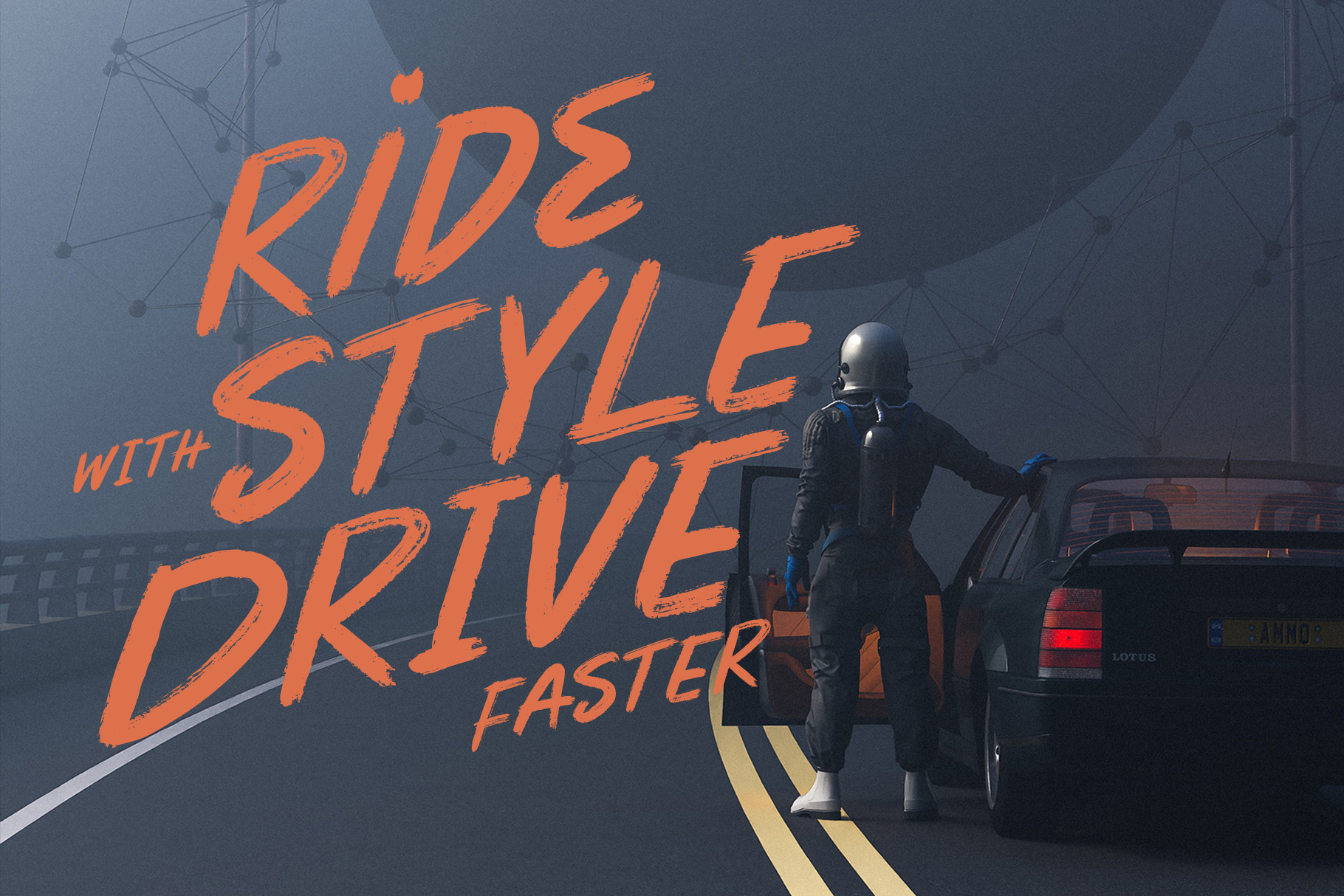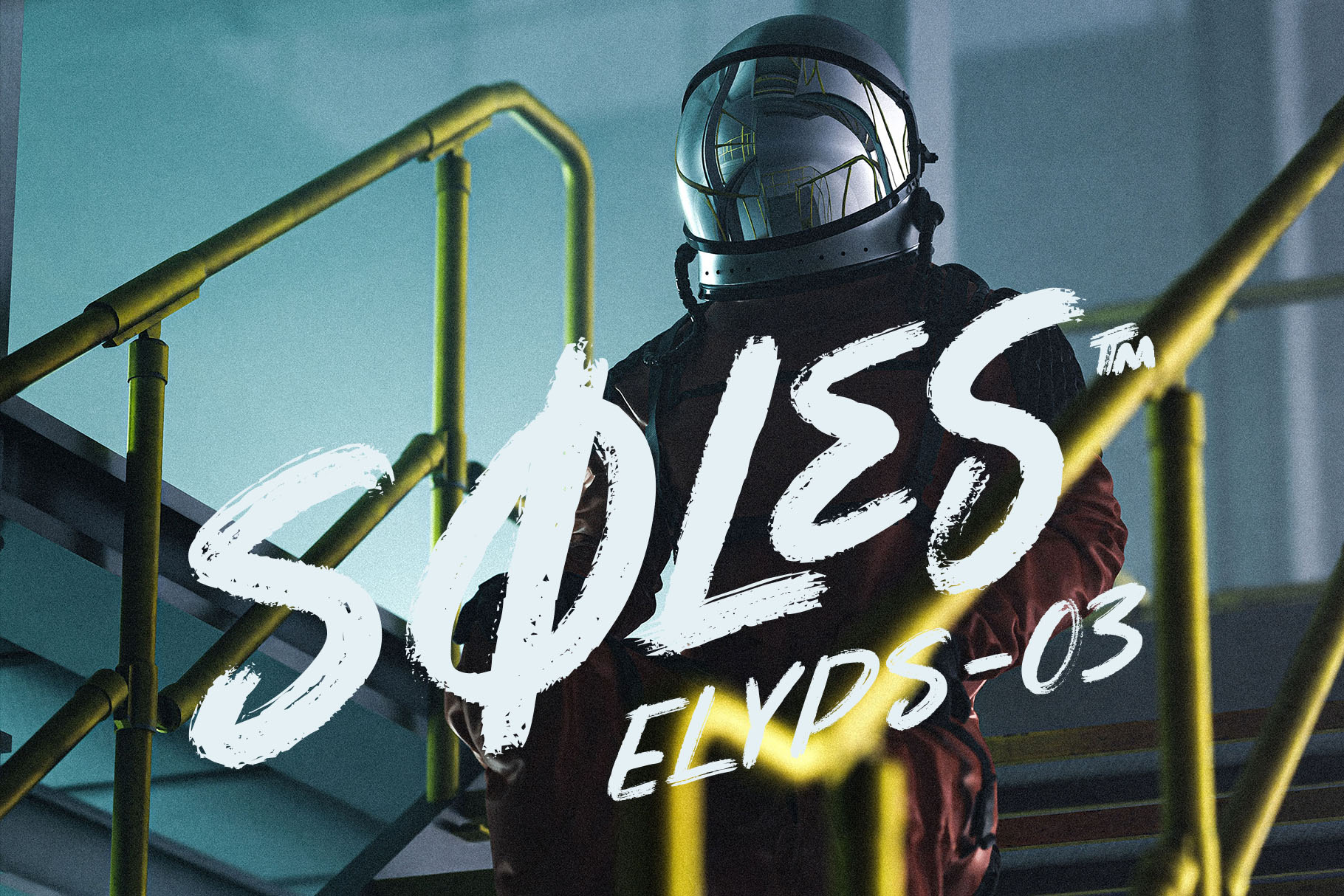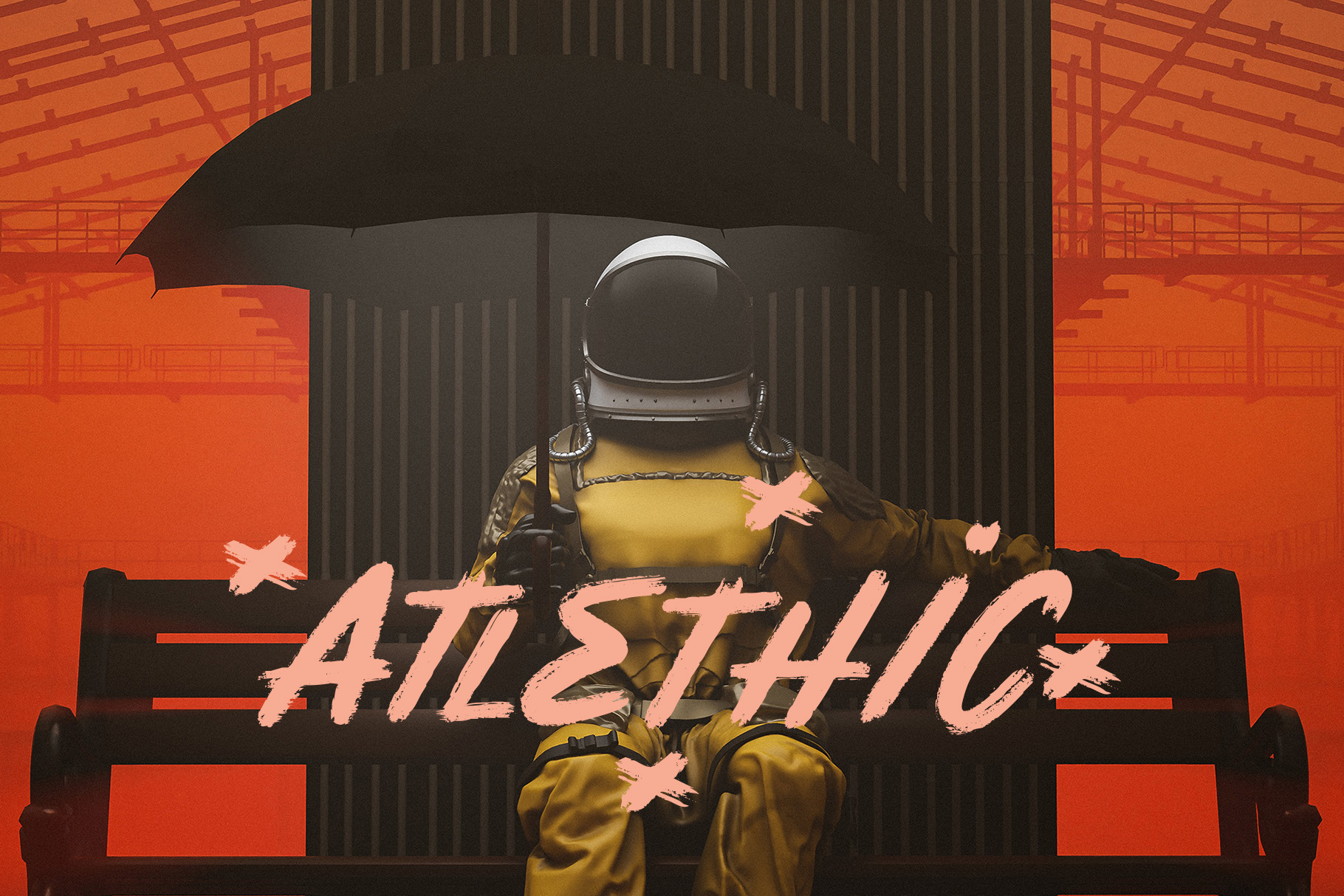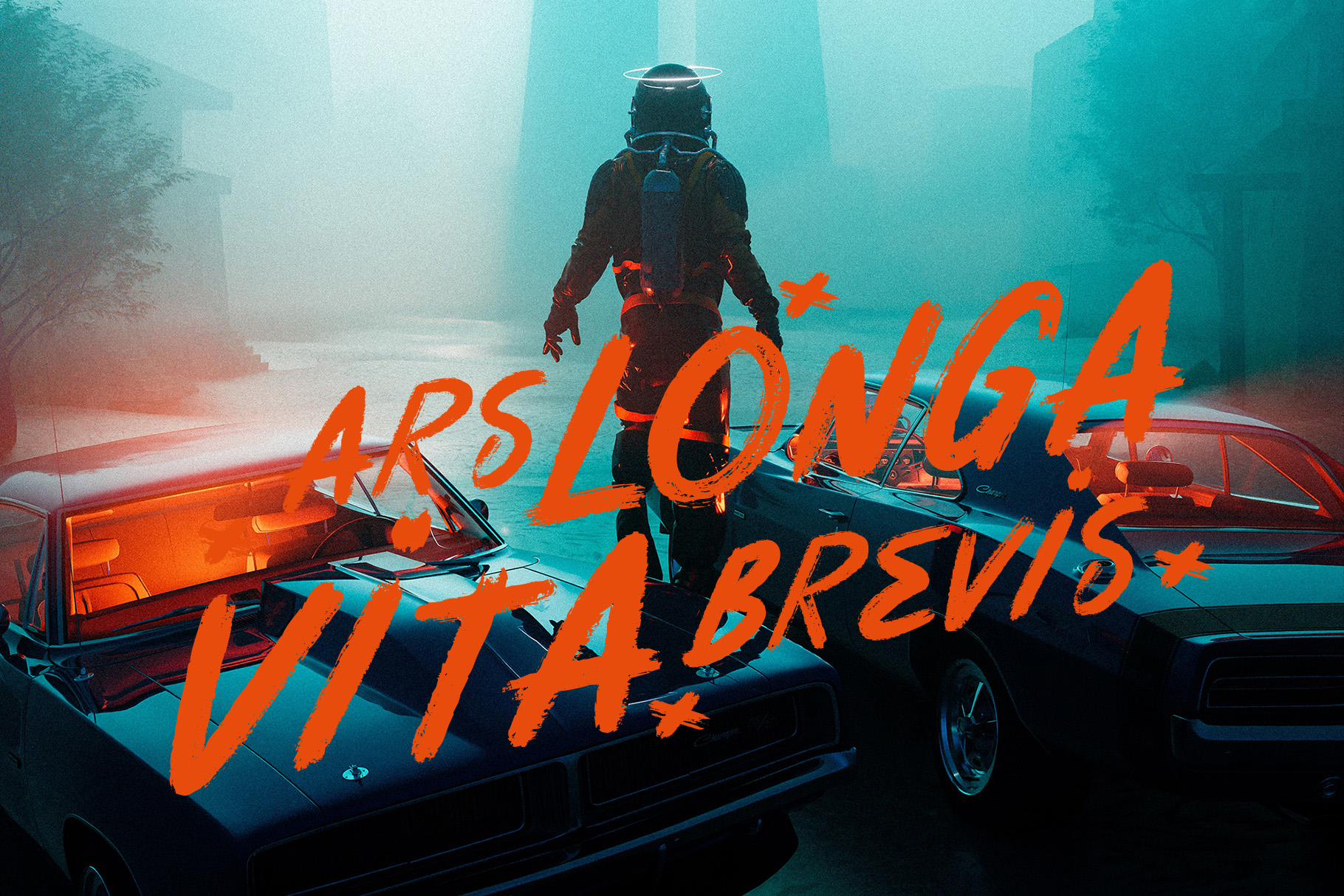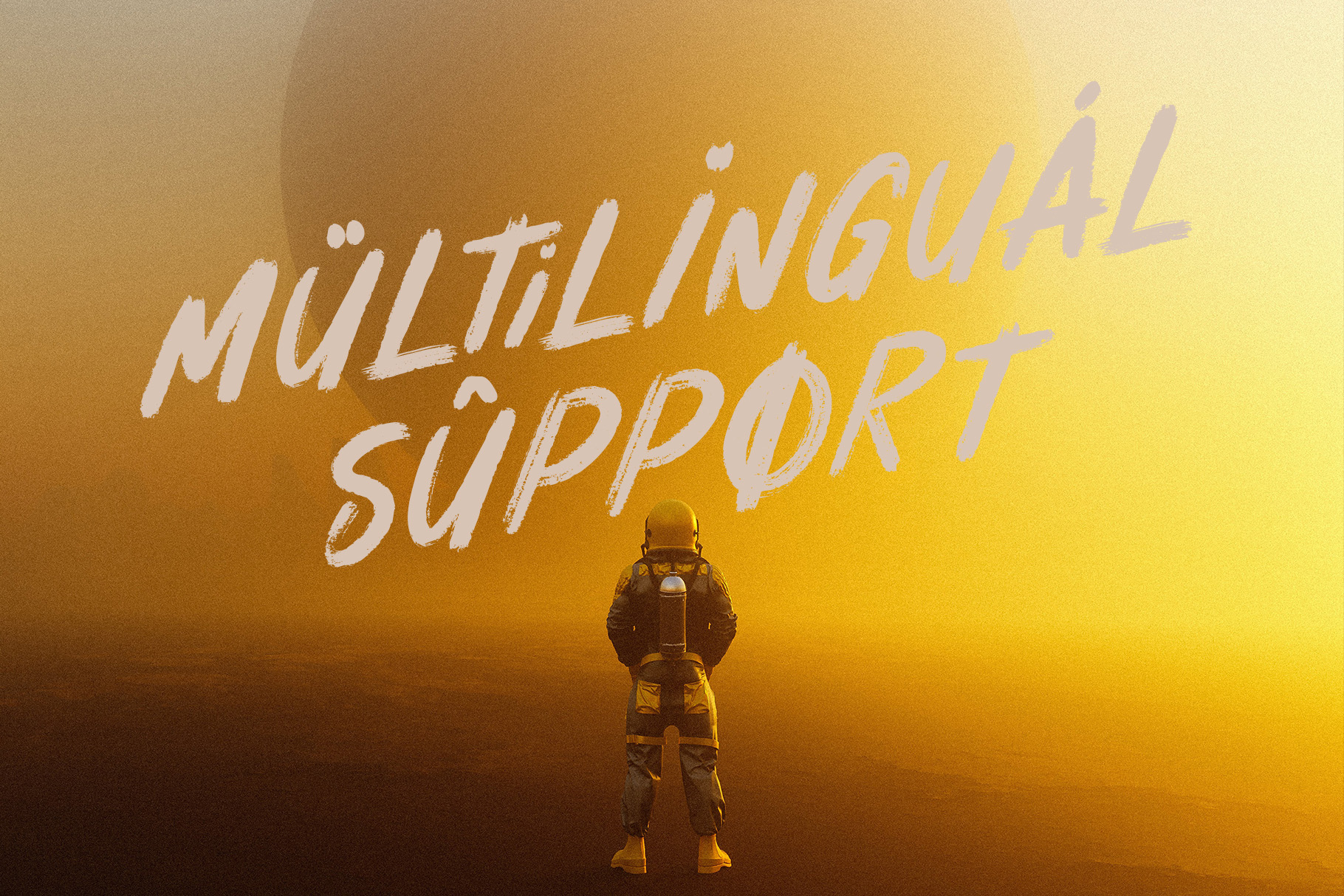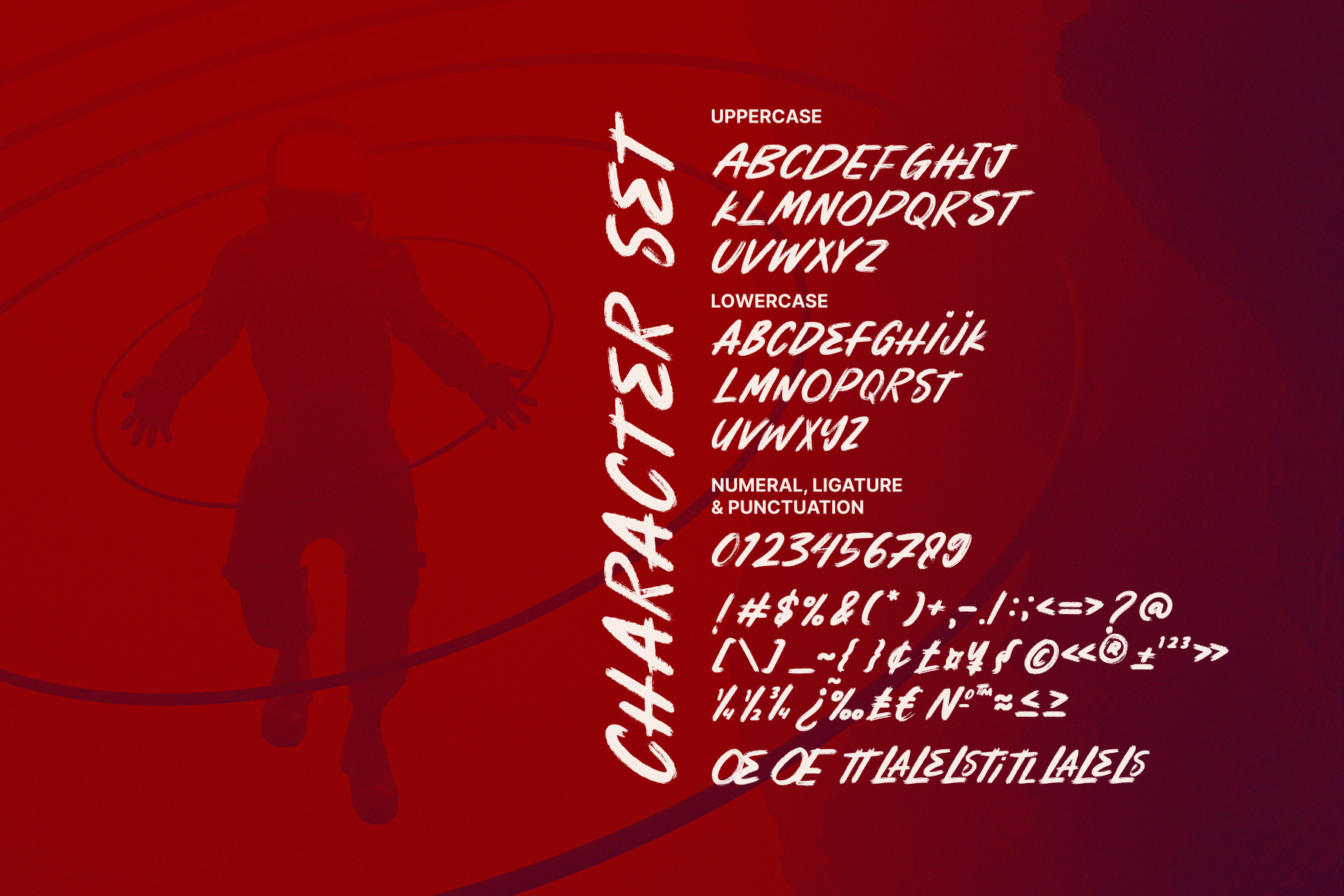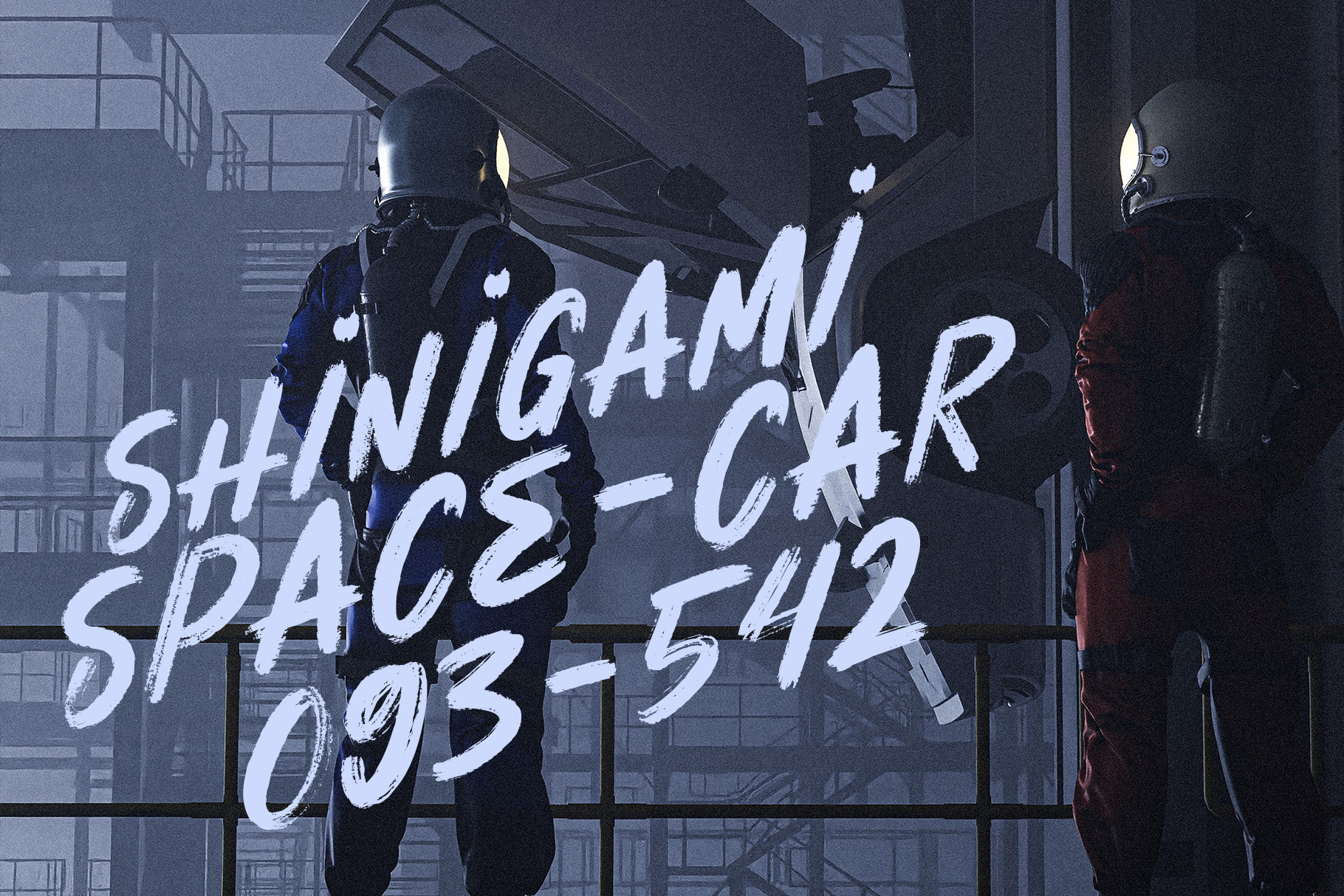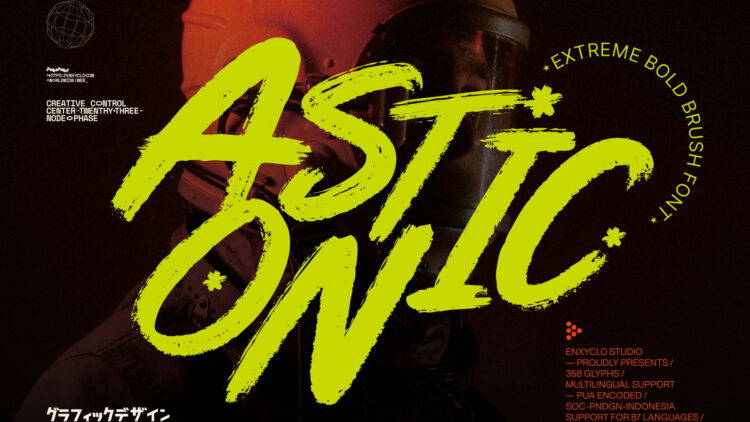
NCL Astonic – Bold Dry Brush Font
NCL ASTONIC is extreme bold brush script font. It’s fun, unique, stylish and modern-classic display font. Masterfully designed to become a true favorite, this font has the potential to bring each of your creative ideas to the highest level! It was purposely crafted to be used in large point sizes, although it doesn’t lose its magic in small point sizes. It is perfect for headline, billboard, magazines, website, titles, poster, branding, t-shirt design, and logos. No matter the topic, this font will be an incredible asset to your fonts’ library, as it has the potential to elevate any creation. With this beautiful font, absolutely you can make your project stand out from the rest. See the previews above to get some inspiration on how to use them.
• Contains 358 Glyphs
• Uppercase, Lowercase, & Numeral
• Punctuation, Symbol & Currencies
• 9 Ligatures
• Multilingual Support